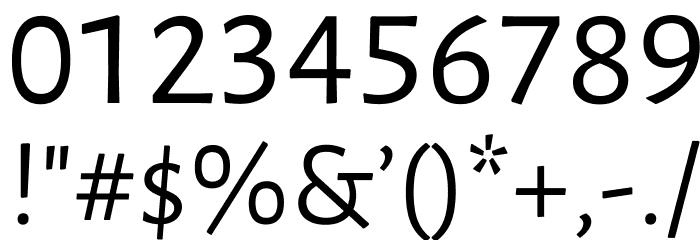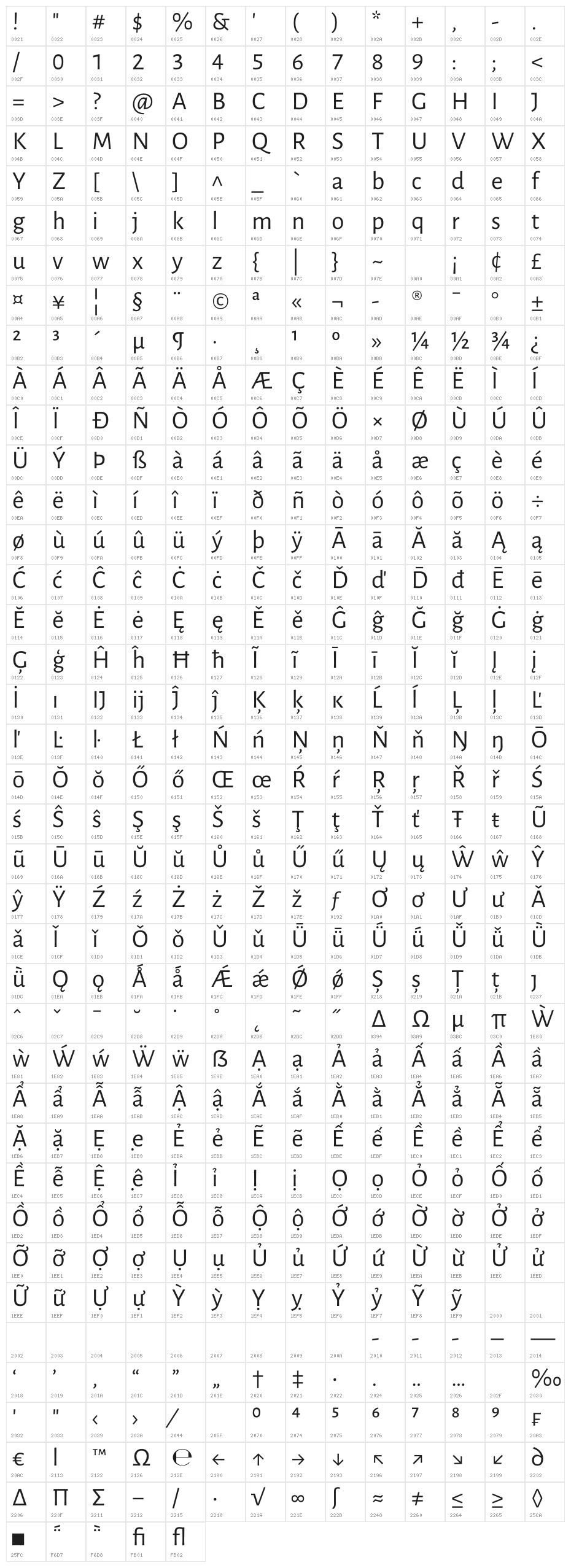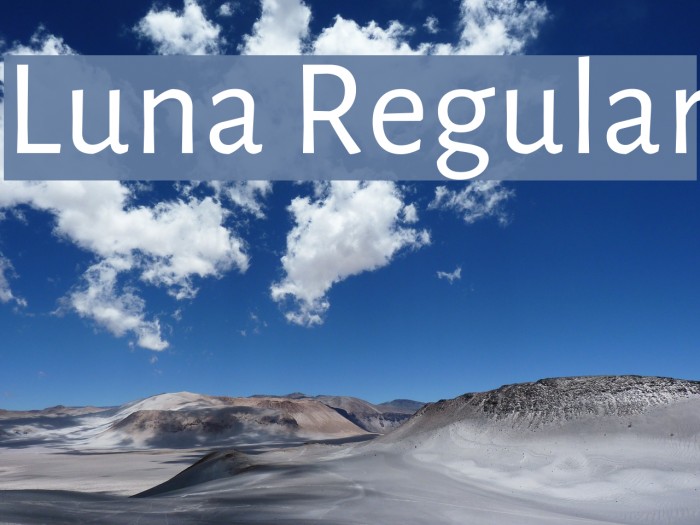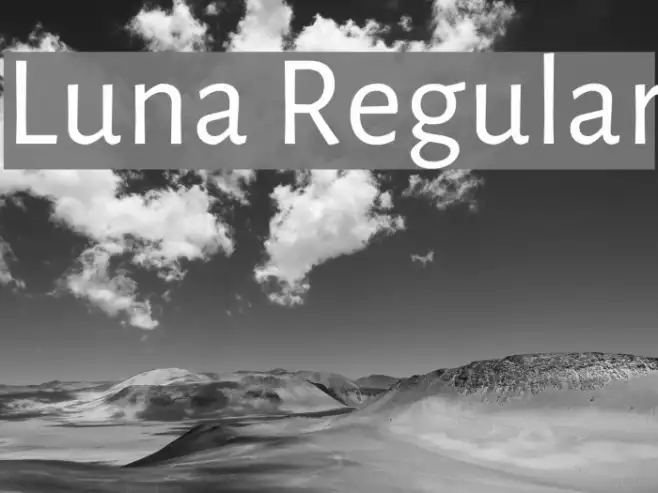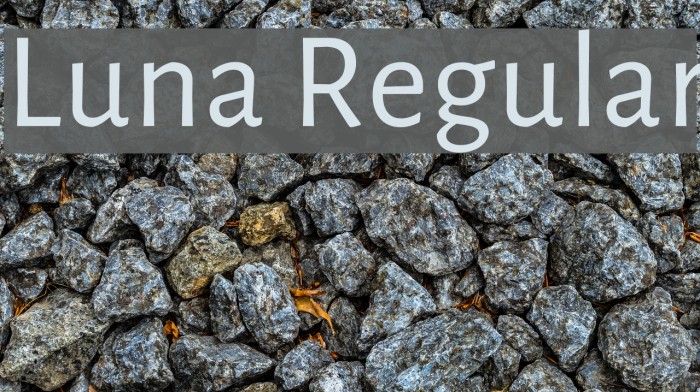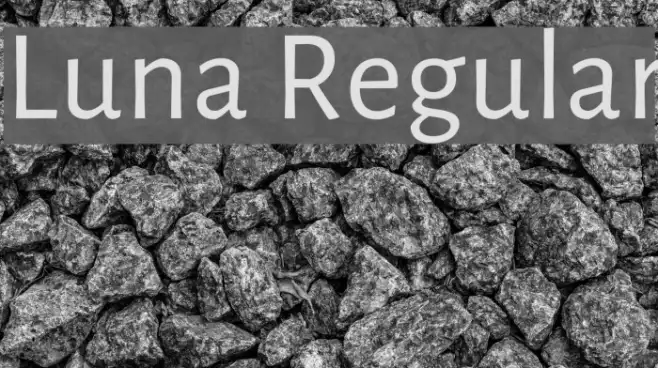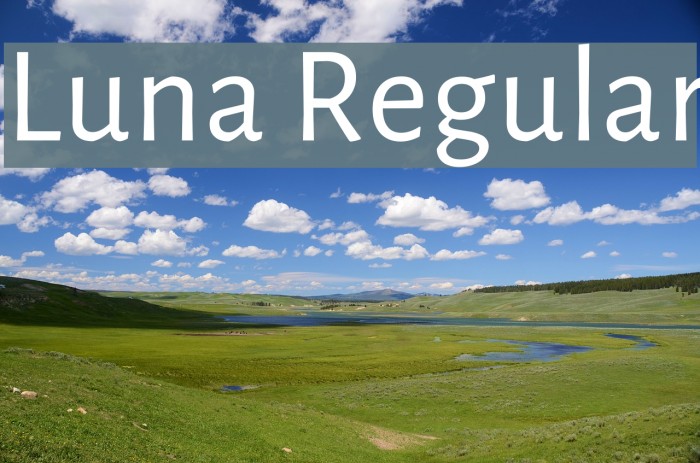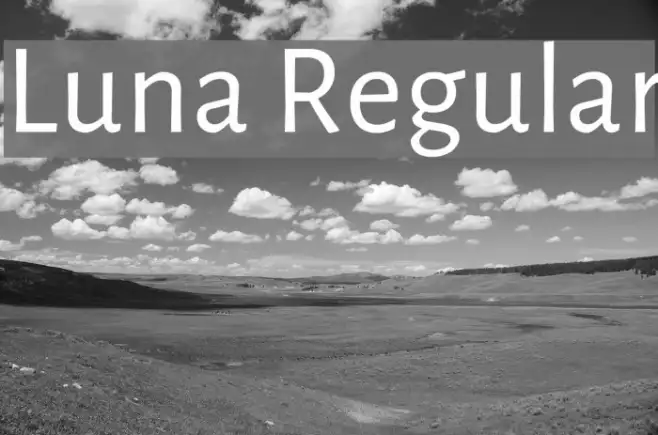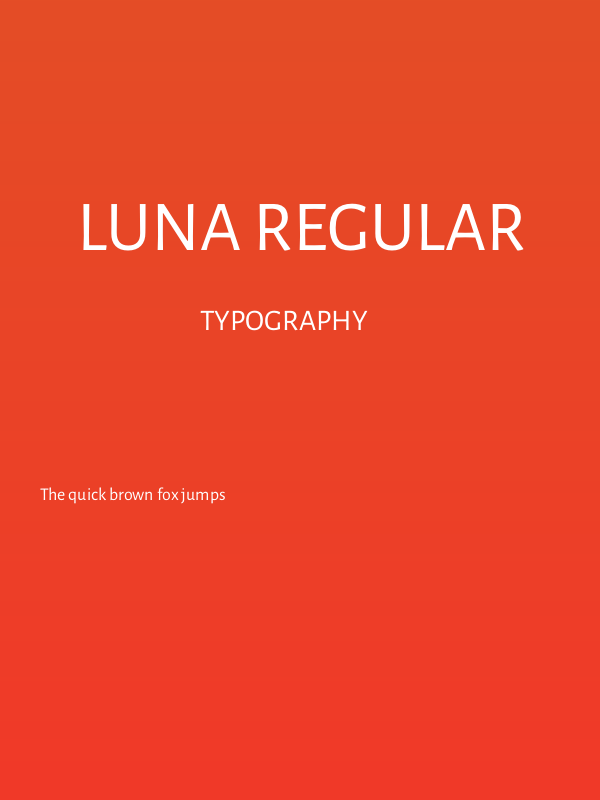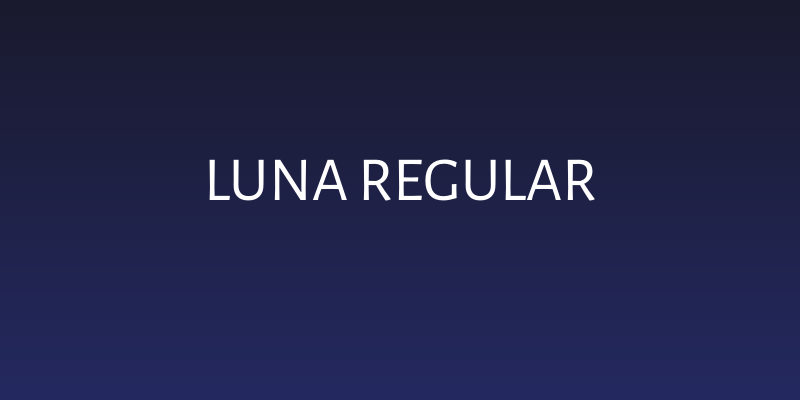
Luna Regular Font
Luna Regular Description
This font features a clean and modern sans-serif design, characterized by its simplicity and readability. The letters are well-proportioned with a consistent stroke width, providing a harmonious and balanced appearance. The uppercase and lowercase letters maintain a uniform style, ensuring clarity and legibility. The numerals are straightforward and align well with the overall aesthetic. Special characters are distinct and integrate seamlessly with the rest of the character set, making this font versatile for various applications.